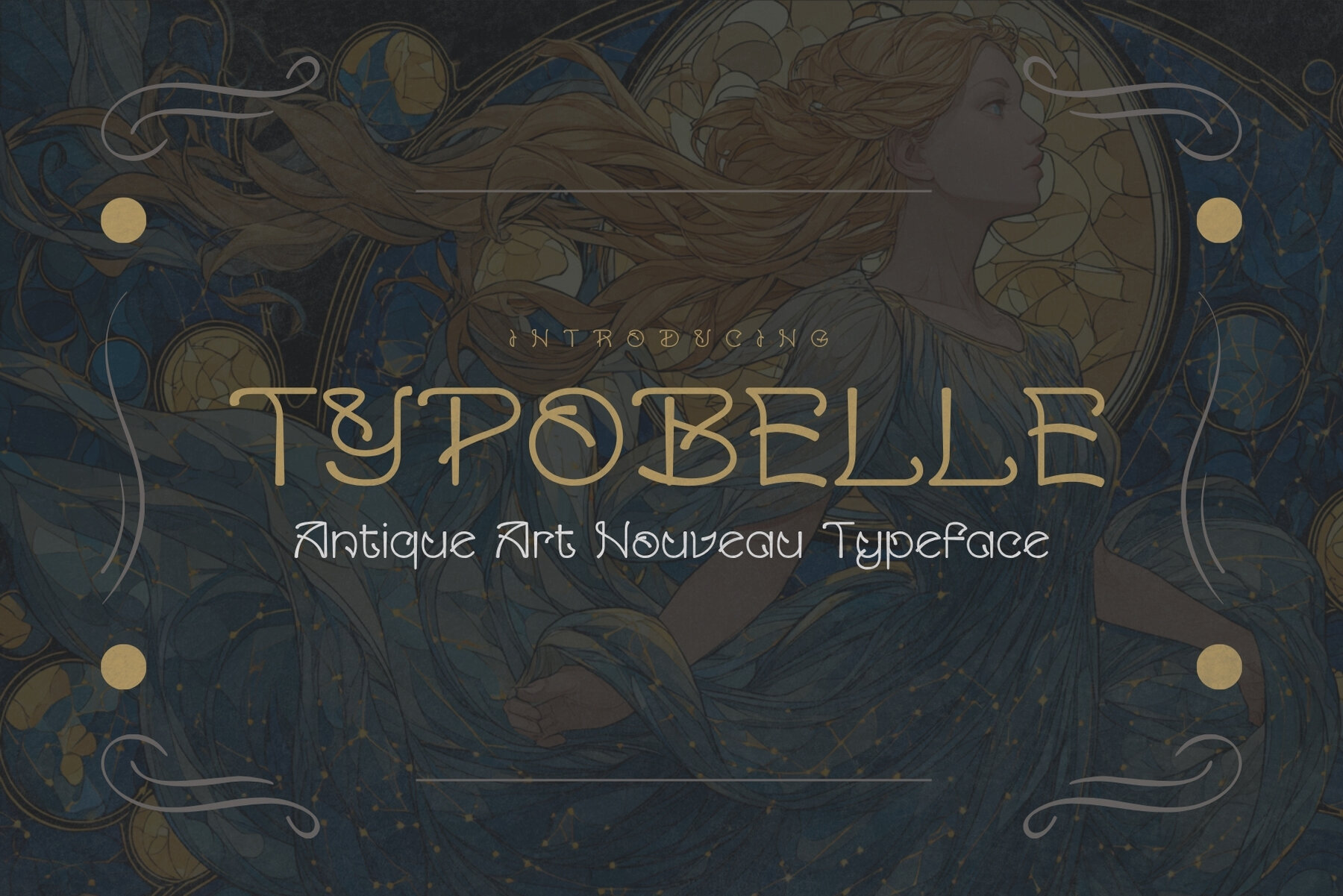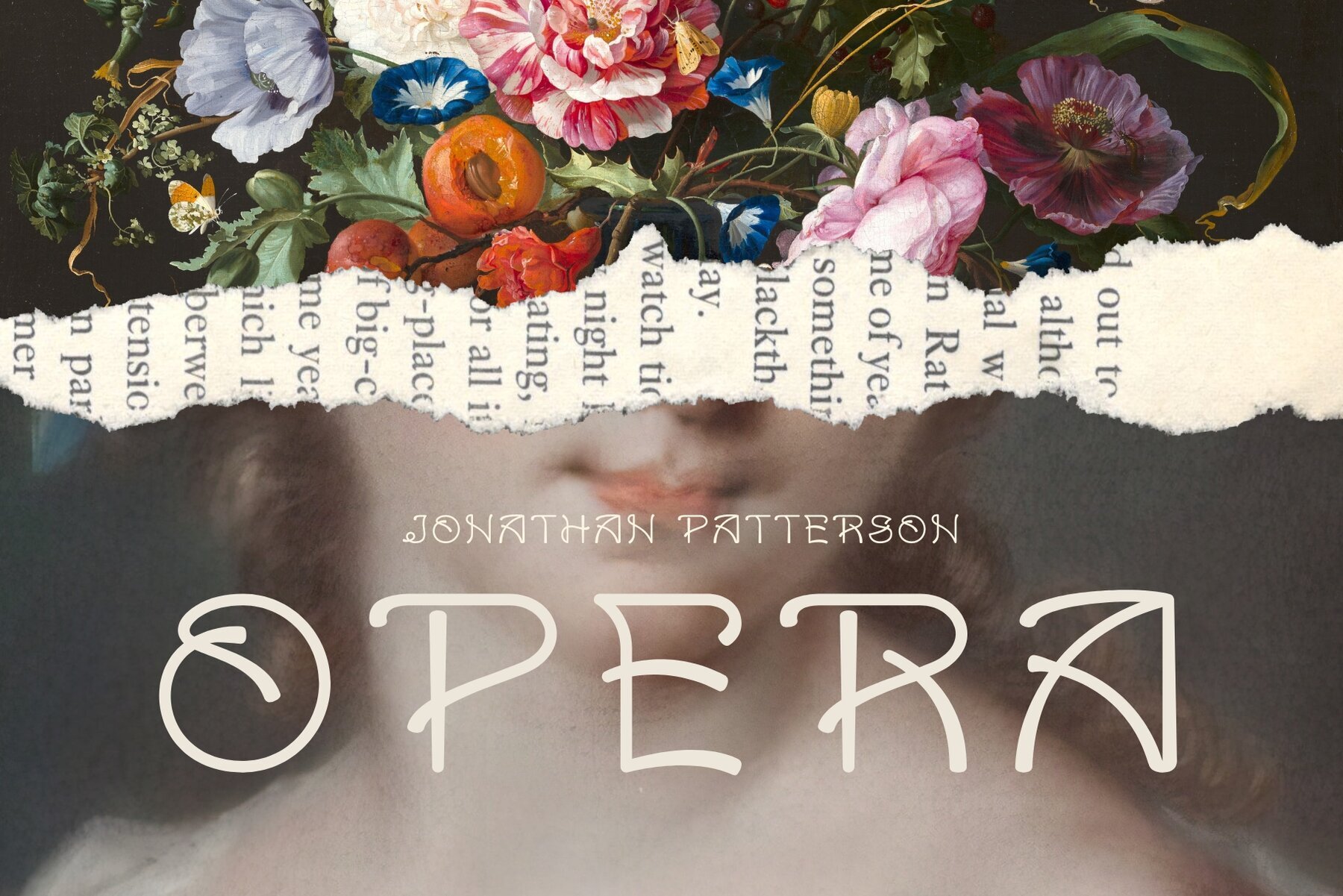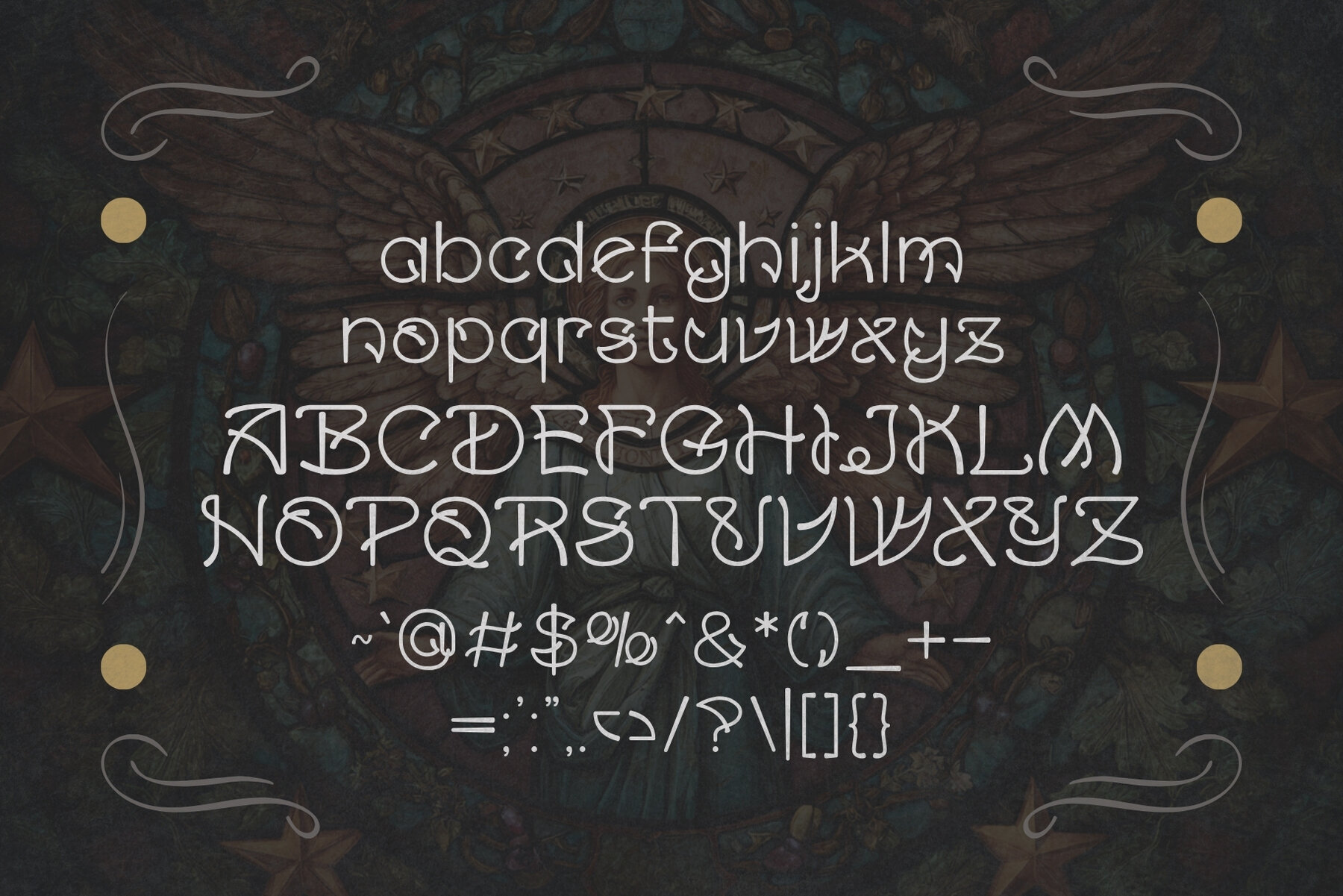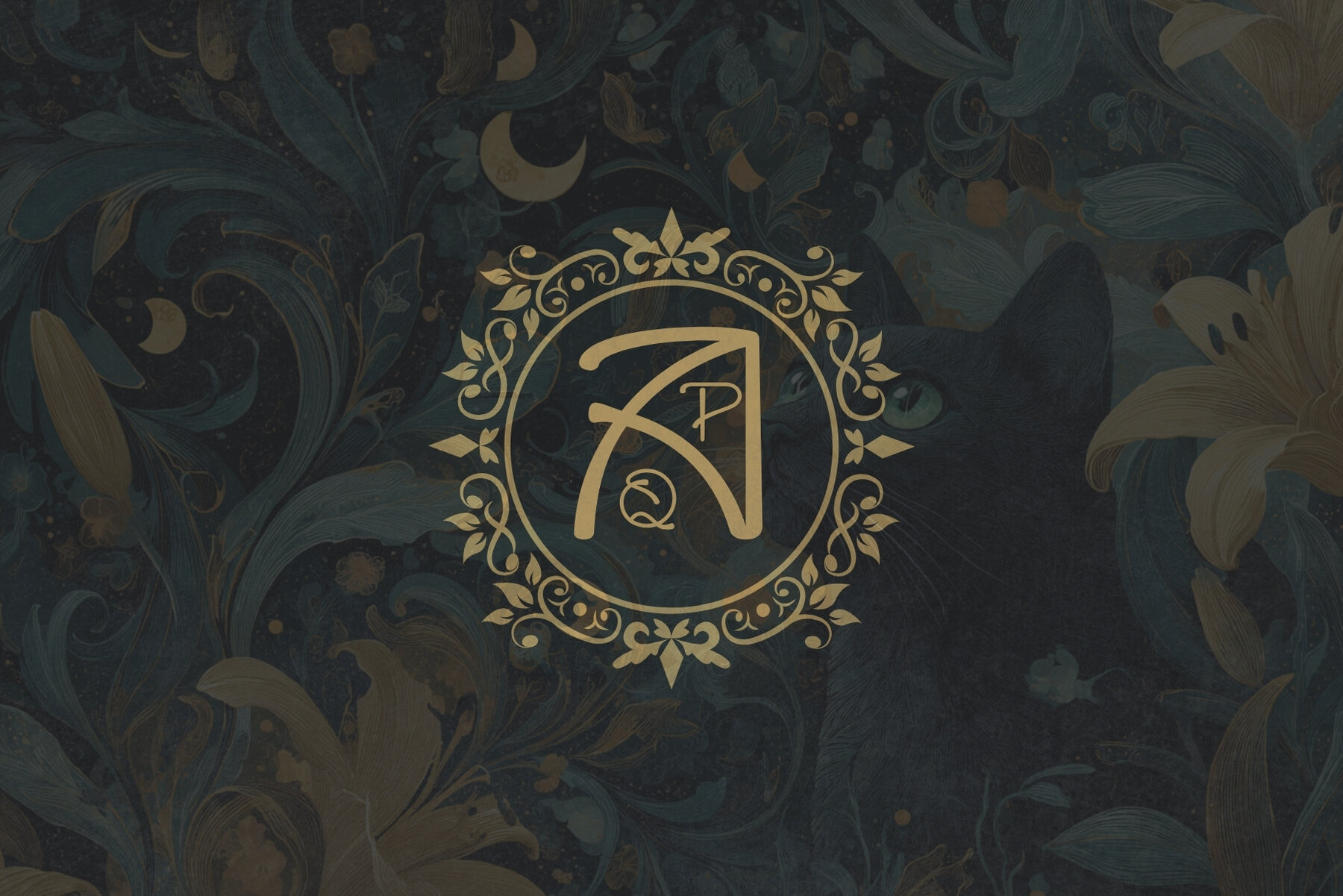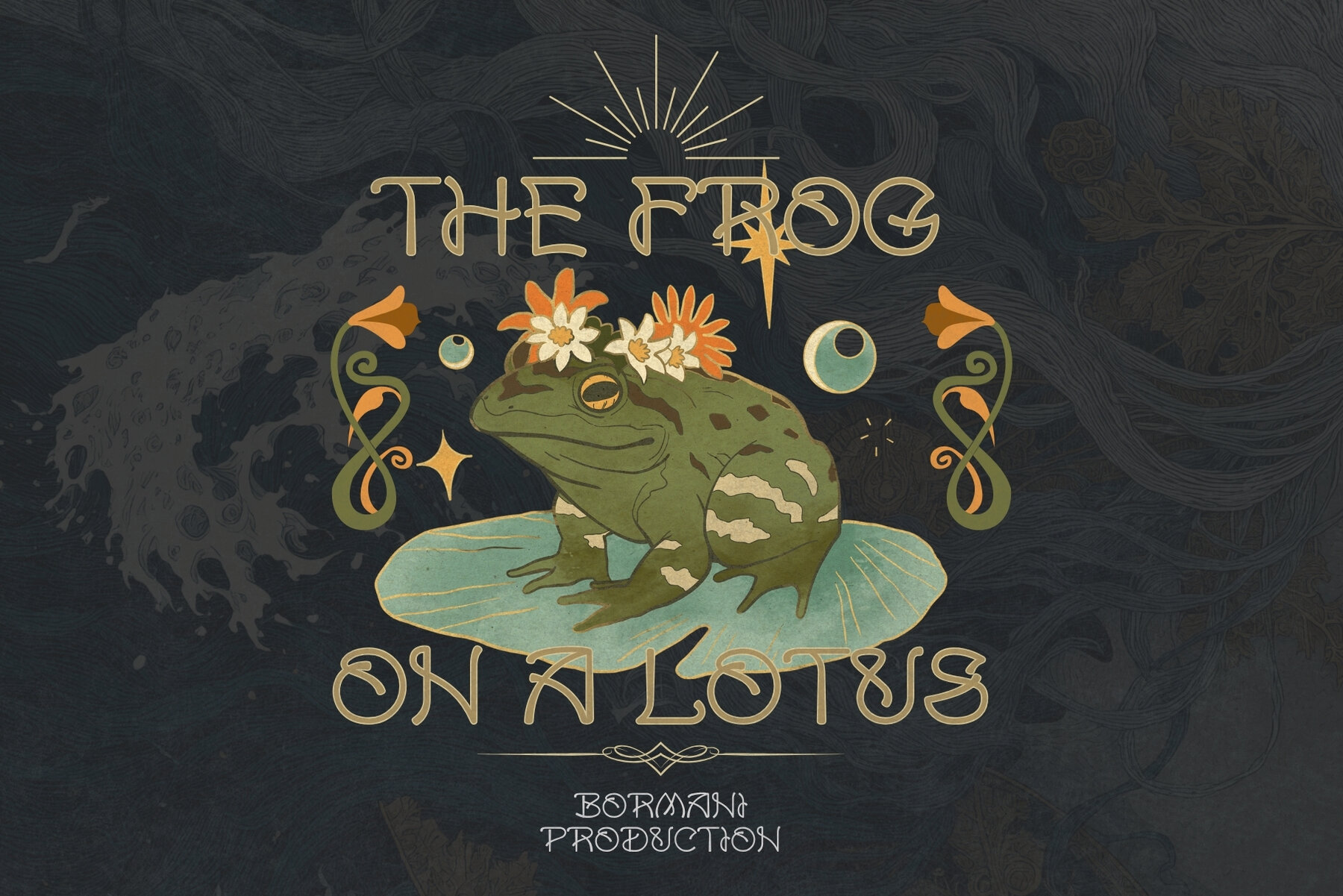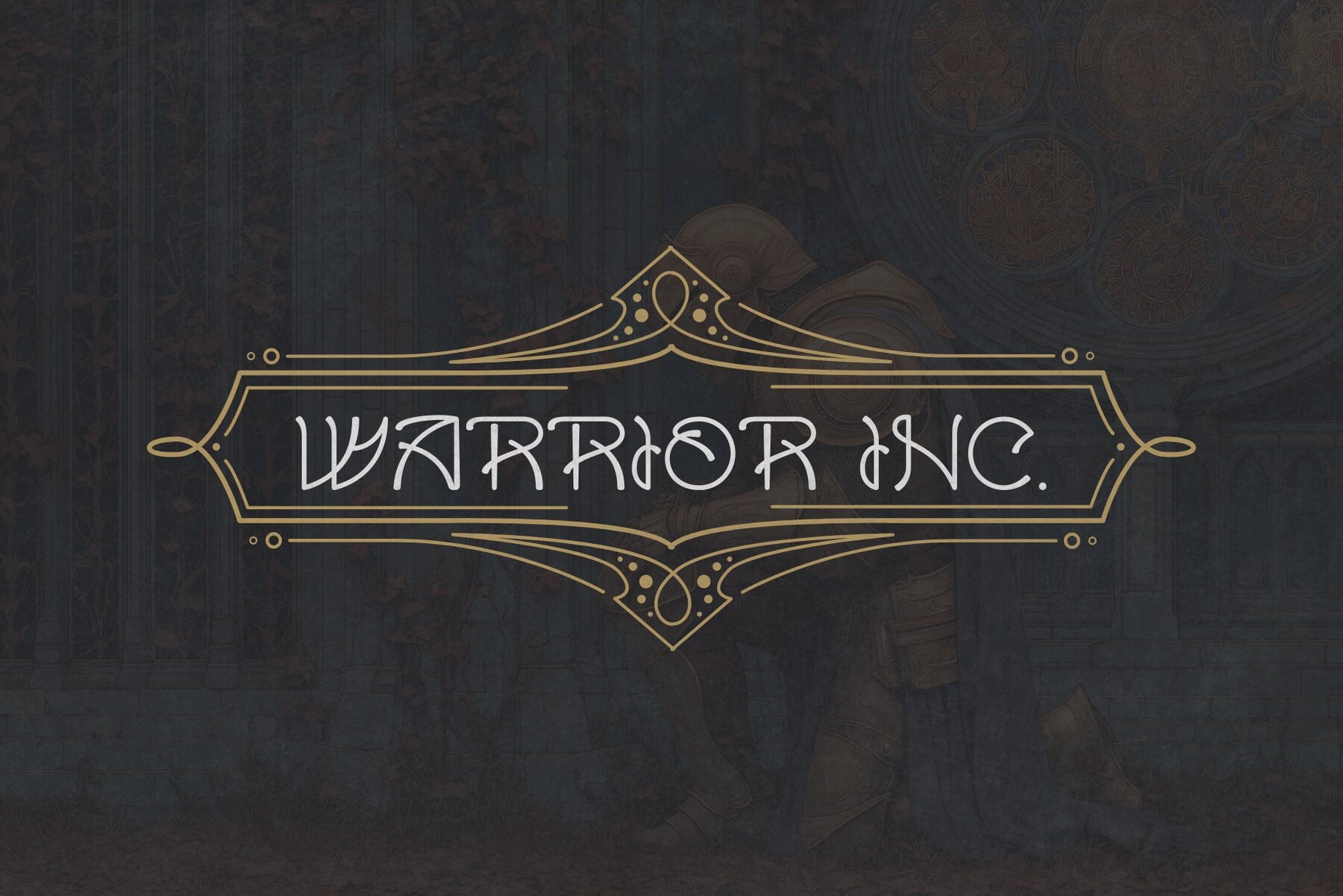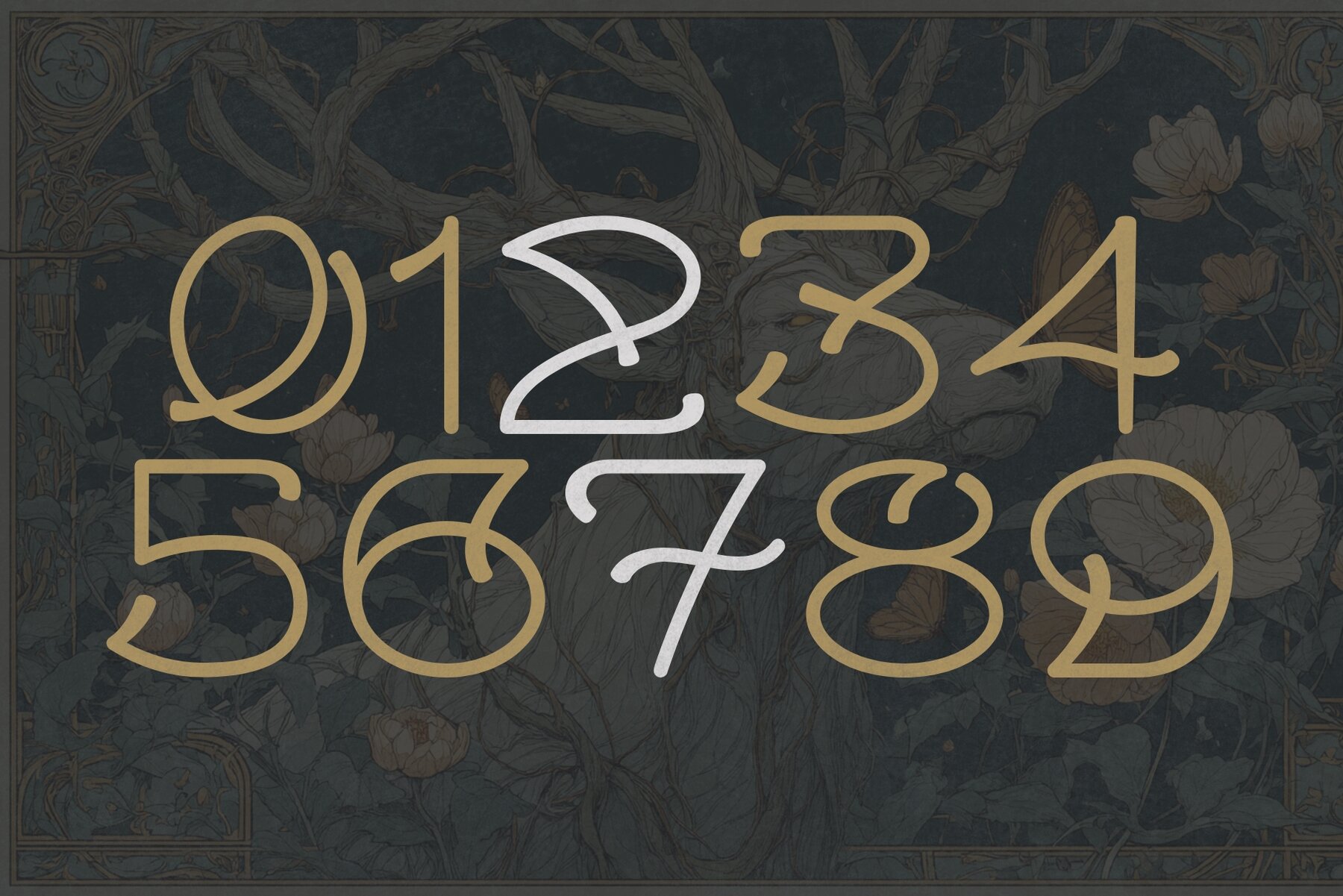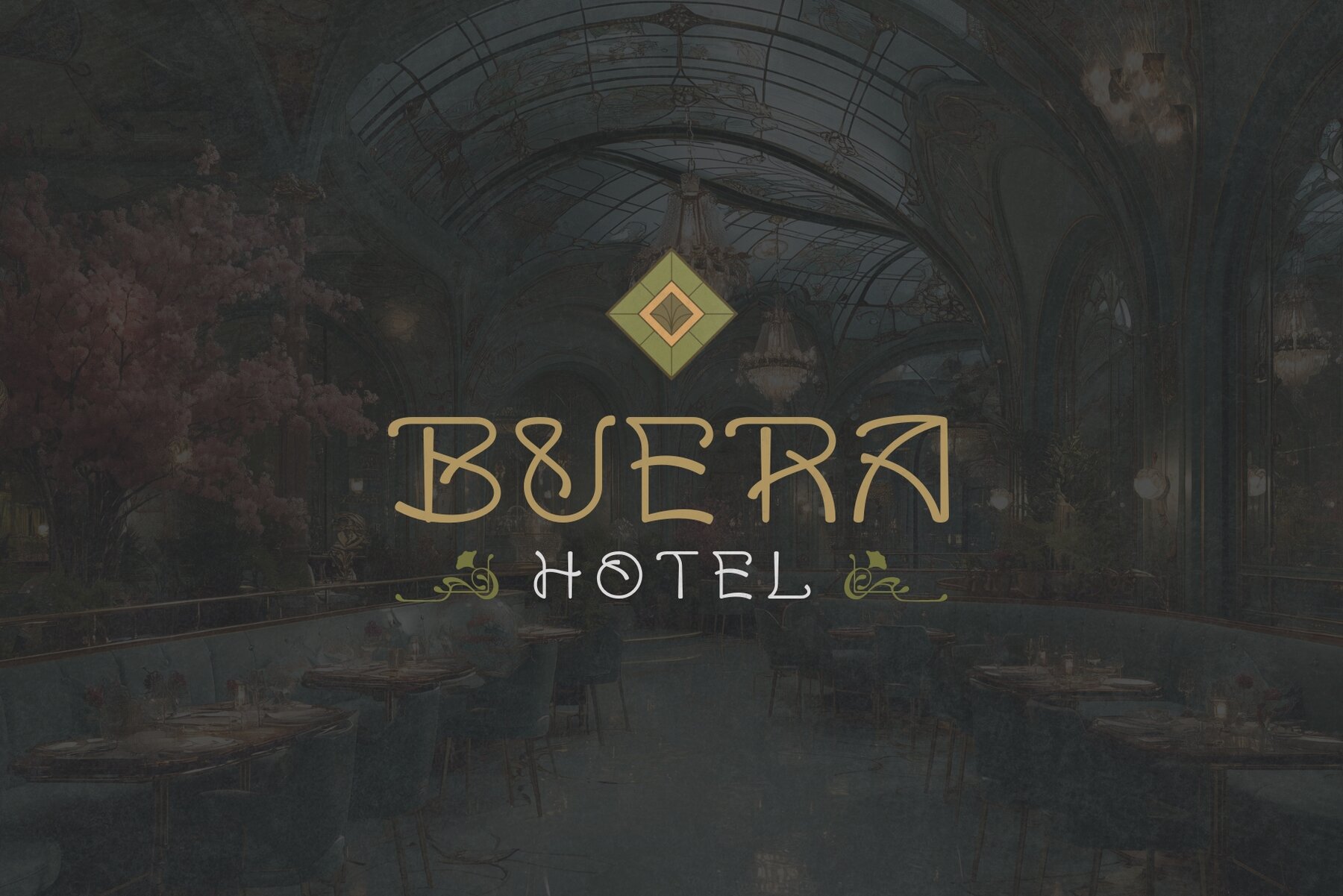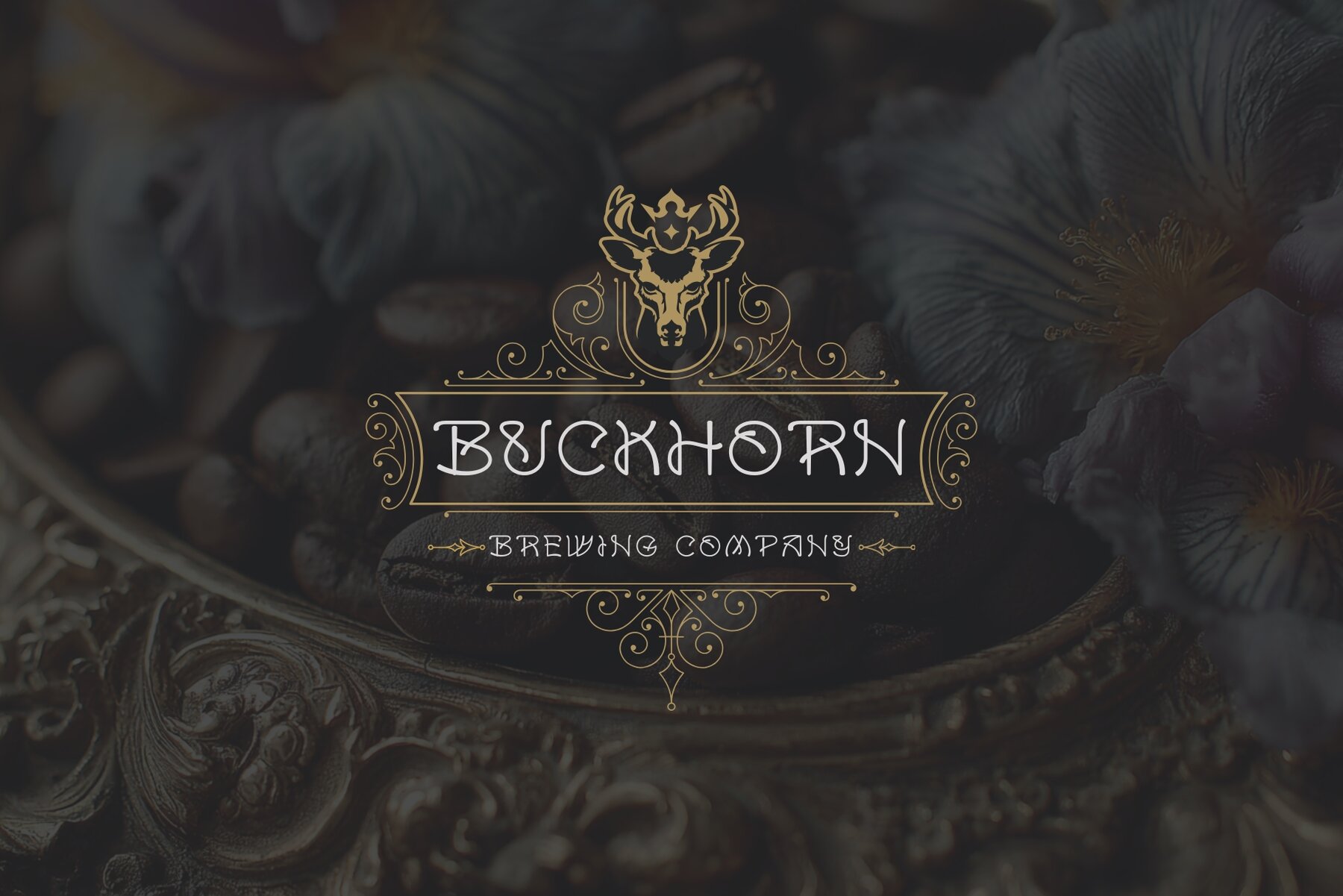
Typobelle
Typobelle is a captivating Art Nouveau typeface that embraces the elegance and decorative beauty of a bygone era. Its graceful curves, delicate strokes, and exquisitely thin letterforms are a celebration of vintage charm and timeless sophistication. Designed to echo the ornamental finesse of the early 1900s, Typobelle revitalizes the visual poetry of its era. Its enchanting forms and fluid shapes offer a touch of historical glamour combined with modern minimalism, making it ideal for wedding invitations, luxury branding, logo design, packaging, and editorial headlines. Typobelle is more than just a font—it's a declaration of elegance. Whether you're crafting a romantic invitation or establishing a bold brand identity, this typeface introduces an air of sophistication that is both nostalgic and contemporary. Allow your words to dance with the grace of history while speaking with the refined voice of Typobelle.Typobelle - An Elegant Art Nouveau Typeface